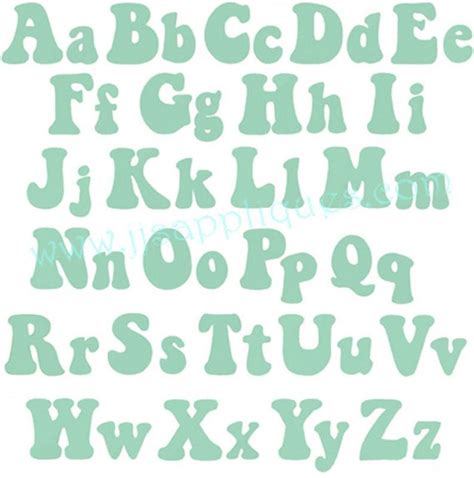
Bubble Font Aesthetic: Cute & Trendy Text Styles
Bubble font aesthetics have taken the internet by storm, adding a playful and whimsical touch to everything from social media posts to online branding. It's a versatile style that can be adapted to convey a range of emotions, from playful and cheerful to quirky and cool. I'm a seasoned expert in all things related to online aesthetics, and I've devoted countless hours to analyzing the ins and outs of bubble font aesthetics. I'm excited to share my knowledge with you, helping you master this trend and elevate your digital presence!
What is Bubble Font Aesthetic?
Bubble font aesthetic, as the name suggests, is a style of text that mimics the appearance of bubbles. It's characterized by rounded, inflated letters that seem to float and pop with personality. This aesthetic is heavily influenced by the playful and lighthearted nature of cartoons and comic books, often incorporating bold colors, playful textures, and quirky imagery.
Exploring the Nuances of Bubble Font Aesthetic
A Visual Delight
Bubble font aesthetics are all about visual impact. The rounded, inflated letters create a sense of movement and energy, adding dynamism to any design. The playful nature of this style can be used to enhance the mood of a design, making it feel more lighthearted and inviting.
Beyond Just Fonts
While bubble fonts are the cornerstone, bubble font aesthetics encompass more than just the text itself. It involves a cohesive design approach that incorporates other visual elements to complement the bubbly text. This can include vibrant color palettes, textures that evoke a sense of softness or playfulness, and even the use of icons or illustrations that align with the aesthetic's fun and whimsical vibe.
A Versatile Style
The beauty of bubble font aesthetics is its versatility. It can be adapted to suit a wide range of purposes, from personal branding to commercial marketing. Whether you're creating a logo, designing social media graphics, or simply adding a touch of personality to your online content, bubble font aesthetics can help you stand out and connect with your audience in a unique and engaging way.
Popular Bubble Font Styles
Cartoon-Inspired Fonts
These fonts draw inspiration from the world of cartoons, featuring playful curves, exaggerated shapes, and a sense of fun. Examples include fonts like Comic Sans, which has become synonymous with the cartoon-inspired bubble font aesthetic.
Hand-Drawn Fonts
These fonts mimic the look of hand-drawn lettering, often incorporating a slightly uneven and imperfect quality. They add a personalized and authentic touch to any design, making it feel more handcrafted and unique. Fonts like Brush Script and Pacifico are popular choices for this style.
Modern Bubble Fonts
These fonts combine the classic bubble font aesthetic with a more contemporary feel. They often incorporate geometric shapes, clean lines, and a streamlined design that feels both playful and sophisticated. Fonts like Montserrat and Roboto are good examples of modern bubble fonts.
How to Achieve Bubble Font Aesthetic
Choosing the Right Bubble Font
The first step is to choose a bubble font that aligns with your project's style and message. Consider the overall tone you want to convey and the target audience you're trying to reach. If you're looking for a playful and lighthearted feel, a cartoon-inspired font might be the best choice. If you're aiming for a more sophisticated look, a modern bubble font would be more appropriate.
Colors and Palettes
Bubble font aesthetics often incorporate vibrant and playful color palettes. Think bright pinks, blues, yellows, and greens. These colors add a sense of energy and excitement to the design, enhancing the overall bubbly feel.
Backgrounds and Textures
The background and textures you choose for your design play a crucial role in creating the bubble font aesthetic. Consider using soft, pastel colors, textures that evoke a sense of playfulness (like polka dots or stripes), or even graphics inspired by cartoons or comic books.
Adding Visual Elements
To further enhance the bubbly feel, you can incorporate a variety of visual elements into your design. These could include icons, illustrations, patterns, or even animations that subtly move and interact with the text.
Bubble Font Aesthetic in Action
Bubble font aesthetics are incredibly versatile and can be applied to a wide range of applications, from websites and social media to branding and merchandise.
Social Media Graphics
Bubble fonts are a popular choice for creating eye-catching social media graphics. The playful nature of the style helps to attract attention and engage viewers. You can use bubble fonts for captions, headlines, and even for creating unique graphics that highlight specific products or promotions.
Website Design
Bubble fonts can add a touch of personality and whimsy to website designs. They can be used for headings, call-to-action buttons, or even for creating unique navigation elements. Just make sure to use them sparingly, as excessive use can lead to a cluttered and overwhelming look.
Branding
Bubble fonts can be used effectively for branding purposes. They can help to create a memorable logo, design eye-catching packaging, and even add a unique touch to marketing materials.
Bubble Font Aesthetic: Frequently Asked Questions
What are some good resources for finding bubble fonts?
There are countless websites and marketplaces online where you can find a vast selection of bubble fonts. Google Fonts, Font Squirrel, Dafont, and Creative Market are all great places to start your search. Remember, always check the font license before using any font for commercial purposes.
How can I create my own bubble font?
If you have some design skills, you can create your own bubble font using specialized software like Adobe Illustrator or FontLab. There are also online font creation tools available that can help you design fonts without any prior experience.
Is bubble font aesthetic suitable for all types of content?
While bubble font aesthetics are versatile, they might not be appropriate for all types of content. For example, using bubble fonts for formal business documents or academic papers might not be the best choice. It's important to consider the context and target audience when deciding whether to use bubble font aesthetics.
So there you have it, Readers! Bubble font aesthetics are a fun, playful, and trendy style that can add a touch of whimsy to your digital presence. By using the right fonts, colors, and visual elements, you can create eye-catching designs that will leave a lasting impression on your audience. And remember, the beauty of this aesthetic is that it's constantly evolving, so there's always something new and exciting to discover. Be sure to check out our other articles on design, typography, and digital aesthetics for more tips and inspiration!